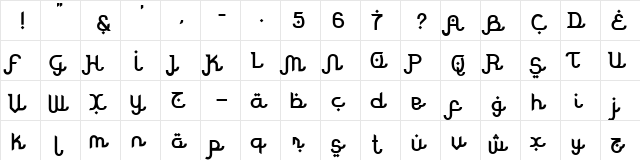
Rodja Bold Rodja Bold
Design Context for Rodja Bold Typeface
Rodja Bold is a composed and adaptable typeface that performs quietly and consistently across a wide range of design contexts. The heavy weight commands attention and anchors typographic hierarchies.